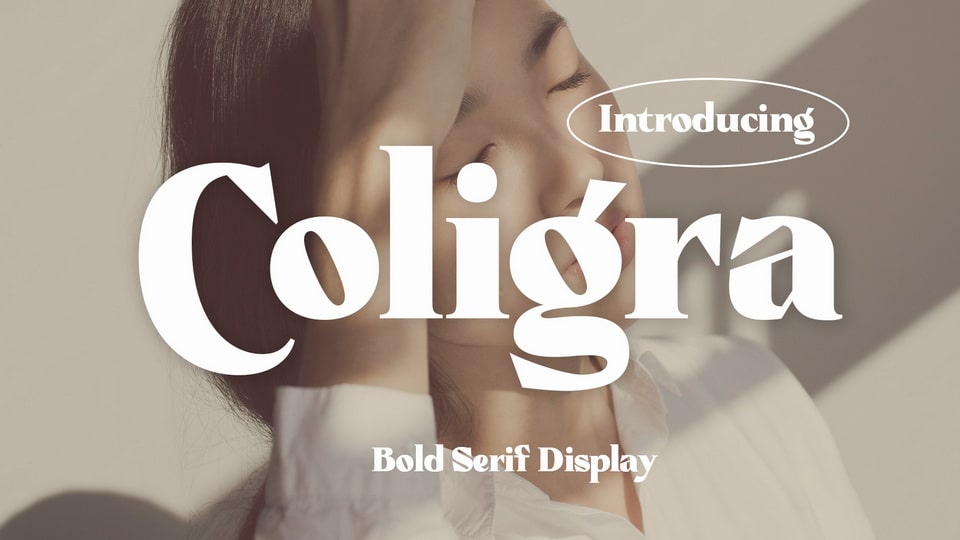
Download Coligra font, a stylish serif typeface with extreme cuts, sharp angles and interactive straps. Characters that seem solid are spread across each replacement letter, with different styles and maximum personality.